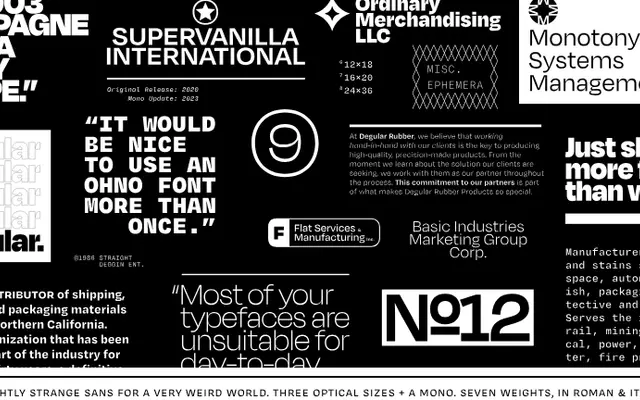
Degular
A deliberately unremarkable geometric sans by OH no Type, offered across three optical sizes and a monospaced variant, totalling 56 styles with variable font support.
Designed to recede rather than attract attention, Degular is a neutral geometric sans available in seven weights with roman and italic across Display, standard and Text optical cuts. A monospaced variant, Degular Mono, extends the family for code and technical settings, while variable fonts are included with full family purchases. The three optical sizes allow a single typographic voice to move from large-scale display work down to small running text without adjustment.
Degular is a geometric-leaning sans-serif designed explicitly to be unremarkable and neutral, with three optical sizes (Display, Text, and standard) and a monospaced companion, placing it firmly in the geometric sans tradition.